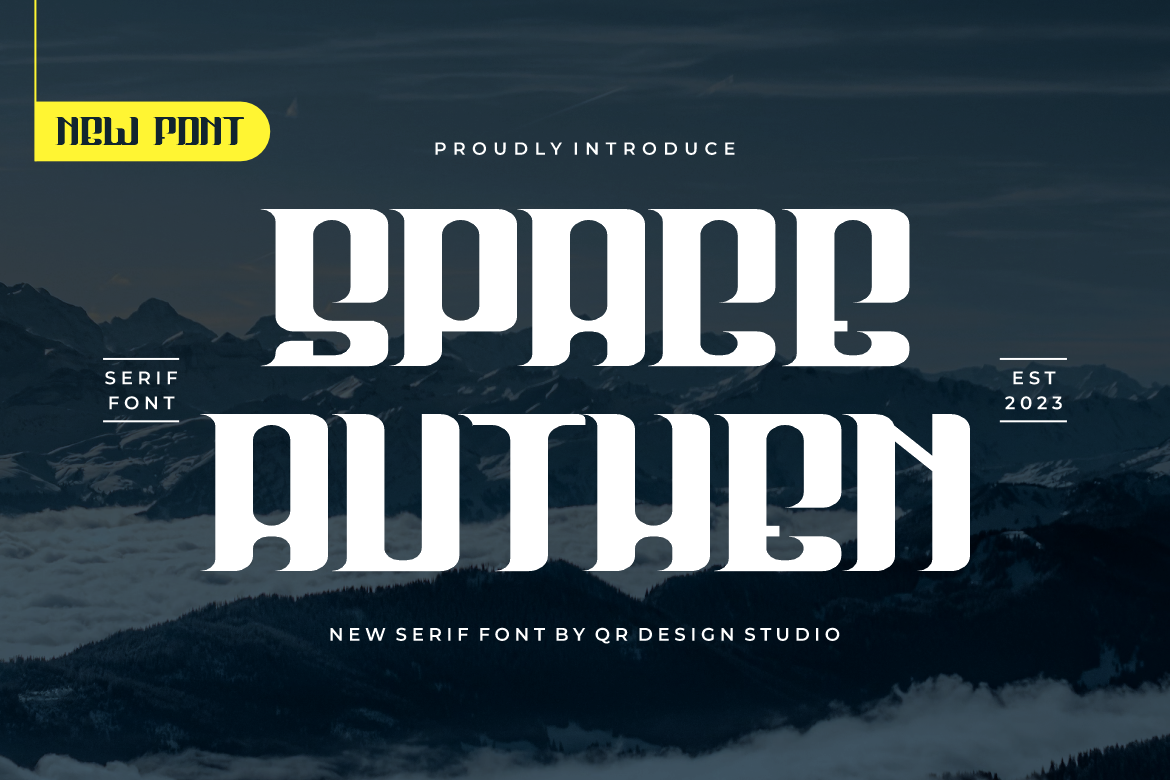
Space Authen - Serif Font
Space Authen - Serif Font is a bold and authentic display font. The font is suitable for any branding project like logo, sport, and many more. Outstanding in a wide range of contexts.